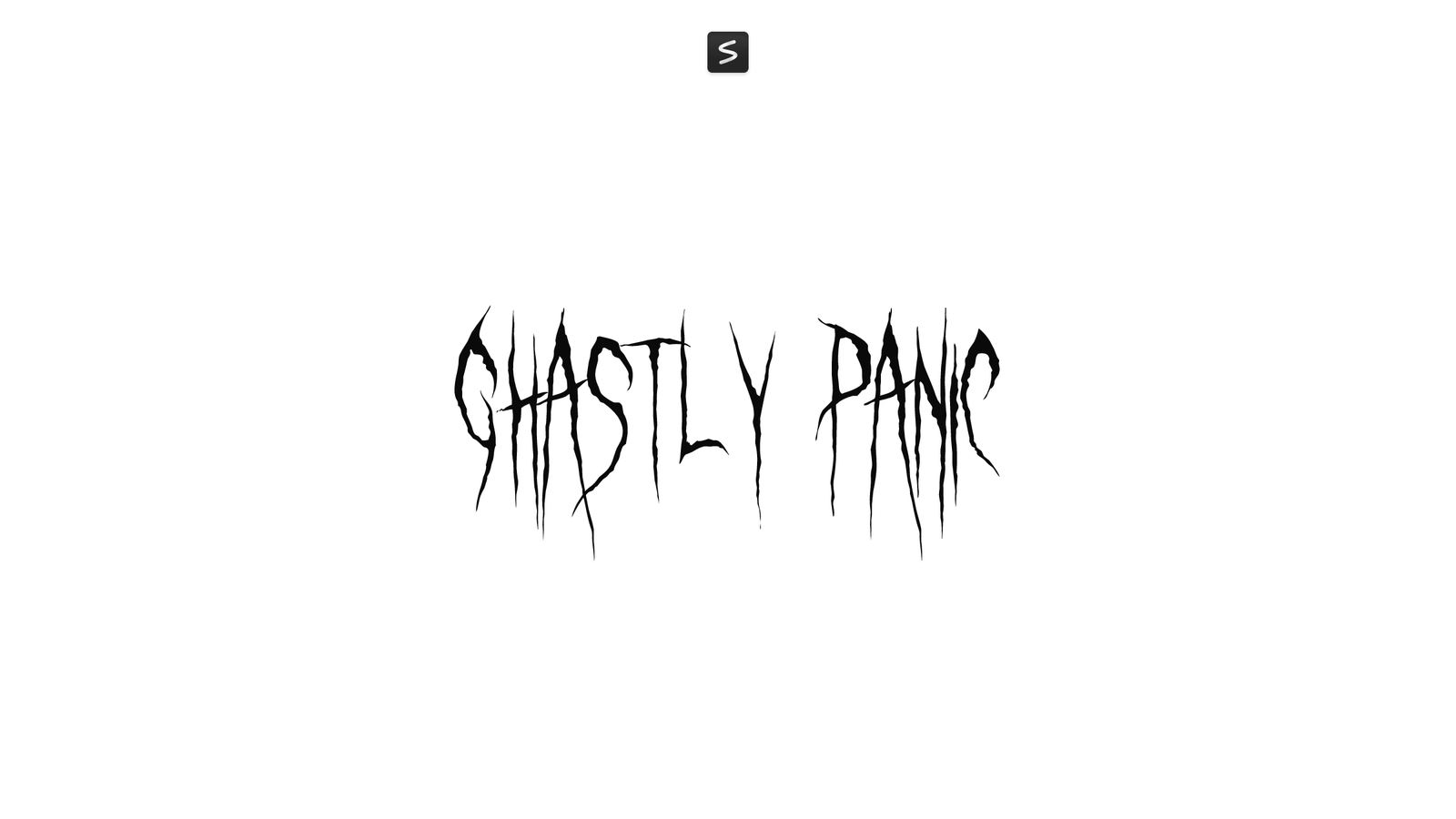
Ghastly Panic is a horror-inflected display font designed by Sinister Fonts in 2005, hand-lettered while watching the remake of “Dawn of the Dead”. The letters have a jagged, unsettling quality that feels like something between a scream and a scrawl, with irregular heights and distressed edges that give the typeface an intentionally chaotic energy.
The font works well for projects that need a deliberately unsettling or gothic mood: horror movie posters, Halloween designs, album covers, creepy game interfaces, or any layout where you want text to feel slightly wrong or menacing. It reads as hand-drawn and raw rather than polished, which works in its favor for designs that value attitude over refinement.
Ghastly Panic is best suited to headlines and short runs of text where its aggressive letterforms can make an impact. For designers building horror-themed projects or seeking a typeface with genuine visual unease, it delivers the goods without irony.